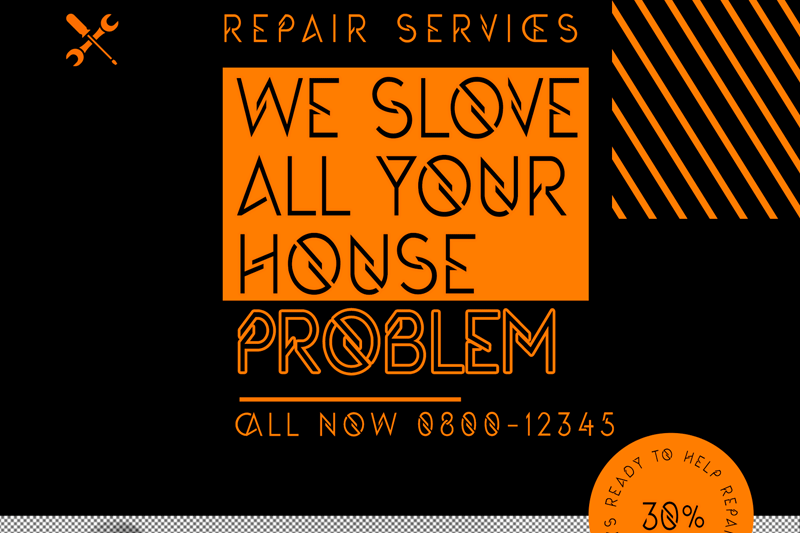
The Queen�s Gambit Font is an incredibly unique and modern display font. It�s celebrates abstract shapes in all their eclectic brilliance. Add this font to your creative ideas and notice how it will make them stand out! The Queen�s Gambit Font is suitable for use in many design forms, for example sci-fi scenes, retro gaming, magazines, postcards, logos, DIY Projects, invitation card, quotes and much more. NOTE: This demo font is for PERSONAL USE ONLY! and NO COMMERCIAL USE ALLOWED. � Here is the link to purchase COMMERCIAL LICENSE: https://177studio.com/product/the-queens-gambit-font/ or https://gumroad.com/l/KLpIf Thank you for download and your appreciated. Keep Support our work and Happy Design !! if you have any problem, let we know by email: admin@177studio.com |